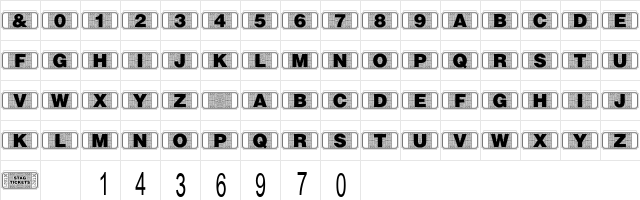
StagTickets Regular
StagTickets takes a measured approach to typography — its balanced proportions and neutral character make it a reliable workhorse for both digital and print work.